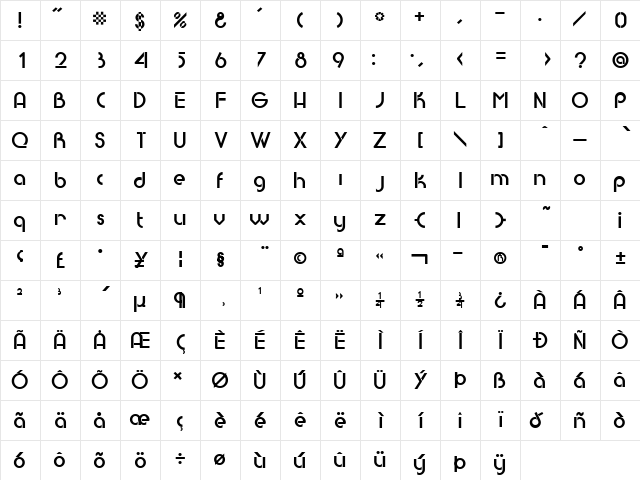
Baby Face Regular
Design Context for Baby Face
Baby Face is a composed and adaptable typeface that performs quietly and consistently across a wide range of design contexts.
Pro Tip: Use Baby Face in both headline and body roles to test its range before committing to a single application.